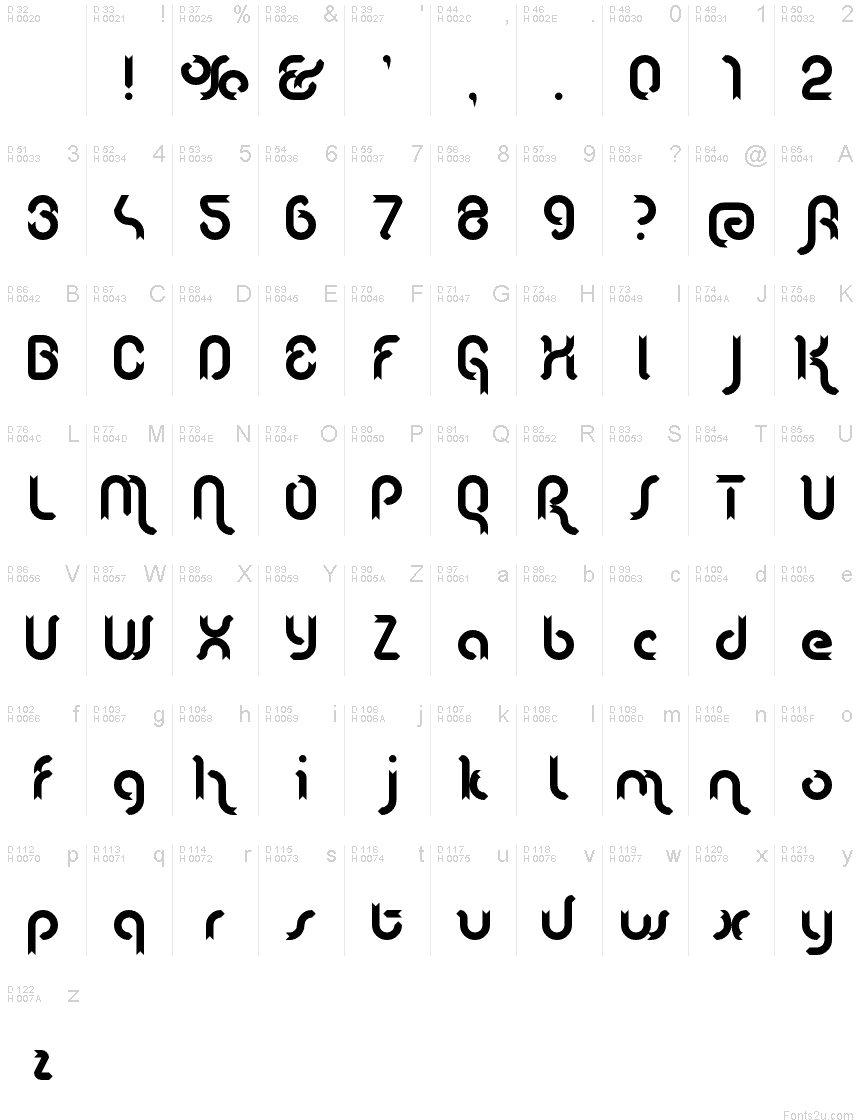
Lenta by Architaraz is a free groovy display font with broad, looping letters drawn at a commanding poster-like weight and a distinctly psychedelic silhouette. Repeated sharp diagonal notches interrupt the thick, rounded strokes, making the deep hooks and coils feel cut, folded, and almost maze-like.
A music poster is its most convincing setting for a concert or club night, especially when the lettering becomes part of the artwork rather than a neutral caption. Those oversized curves also suit album covers and fashion merchandise. Its dense coils and sudden points suit projects drawing on 1970s psychedelia, experimental rock, or surreal graphic art.